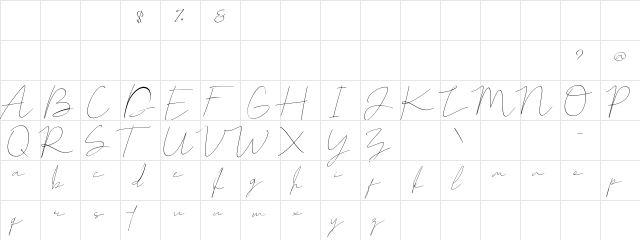
Corleone Demo Regular
| Designer | Askar Fadhilah |
Design Context for Corleone Demo Typeface
Corleone Demo is a composed and adaptable typeface that performs quietly and consistently across a wide range of design contexts.